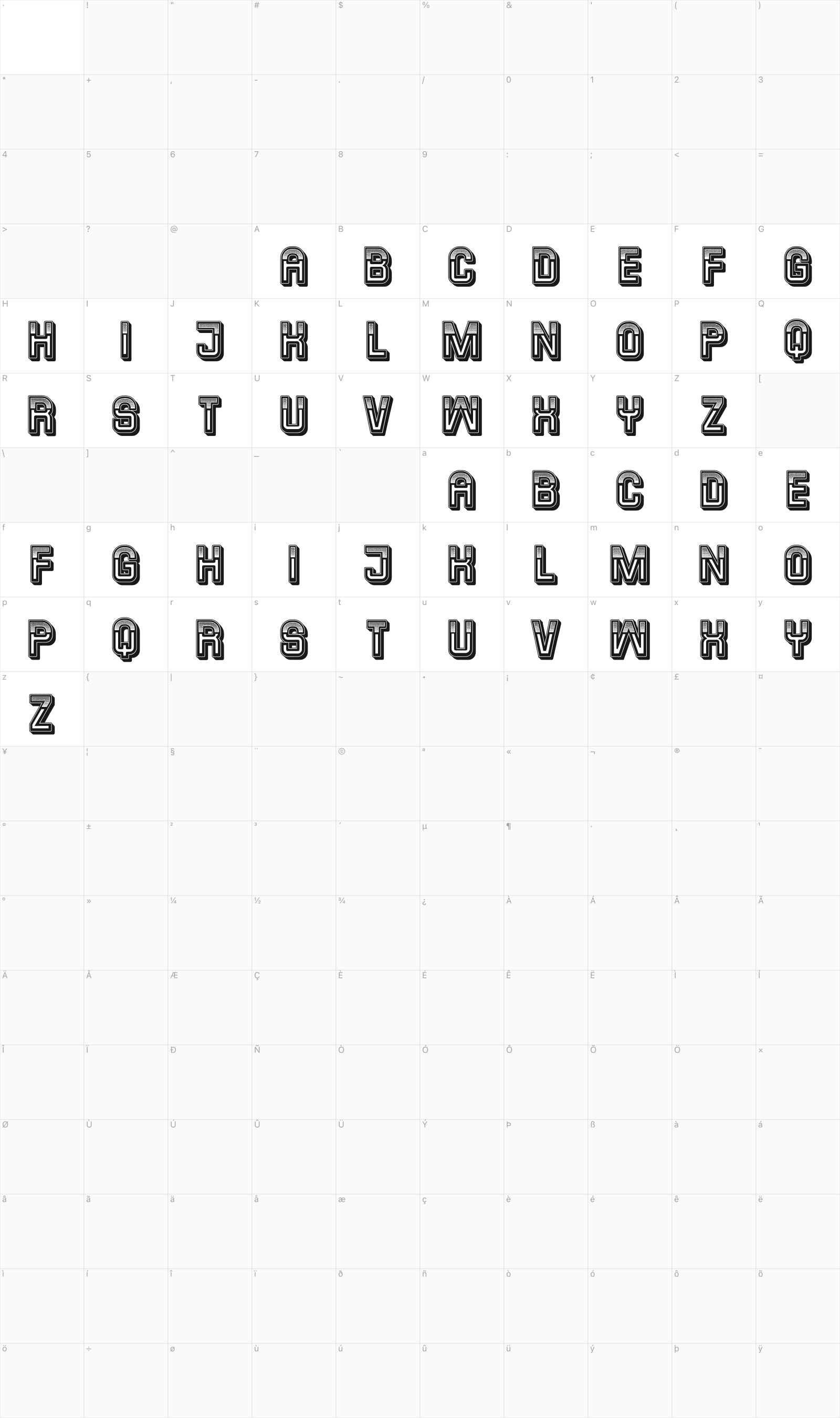
Onder
Onder is a bold rounded display font with a hatched inline texture and a layered drop shadow that recalls vintage American sign painting. The ribbed fill inside each thick stroke gives it a tactile, handcrafted quality you rarely get from purely digital type. Strong at large sizes for posters, packaging, and anything that needs retro energy.